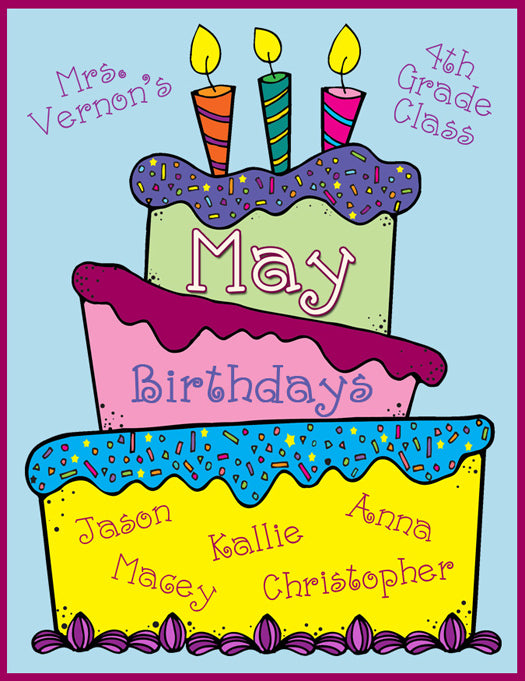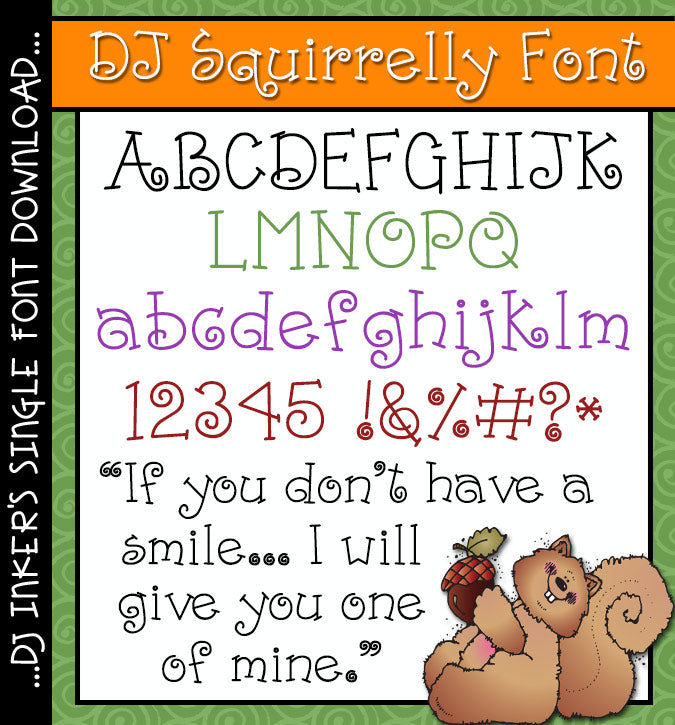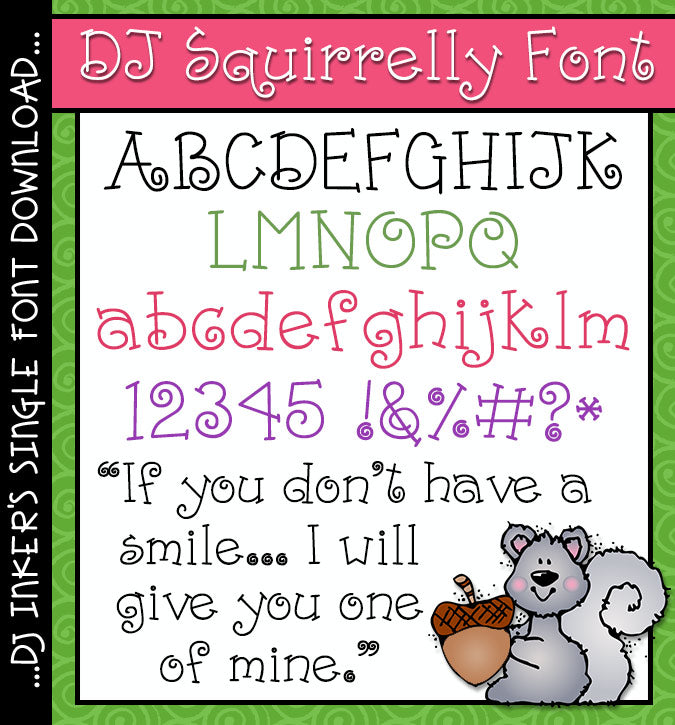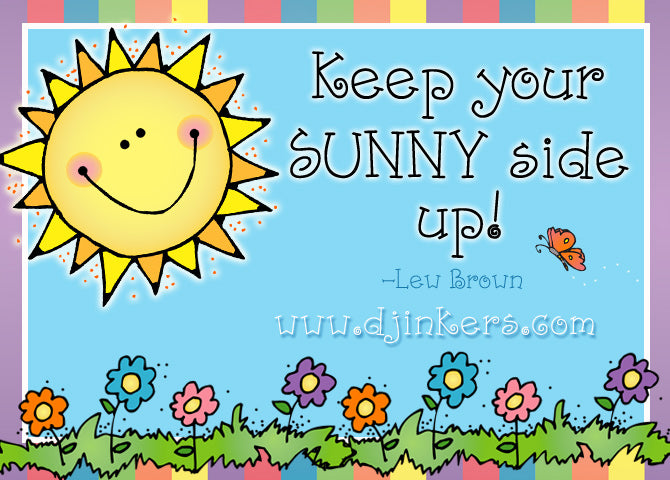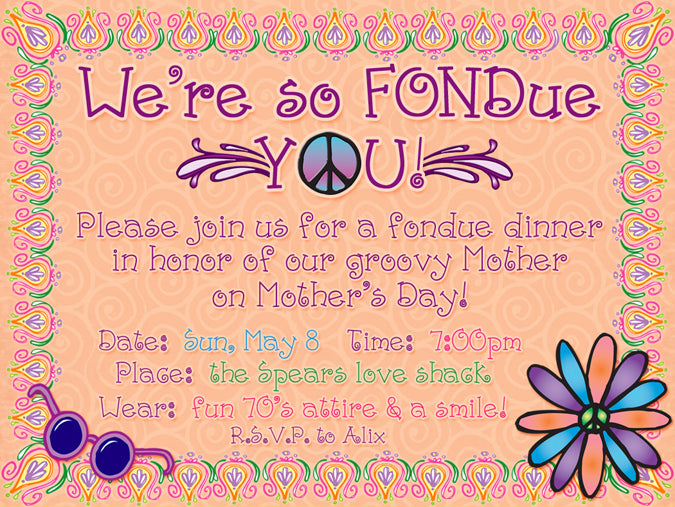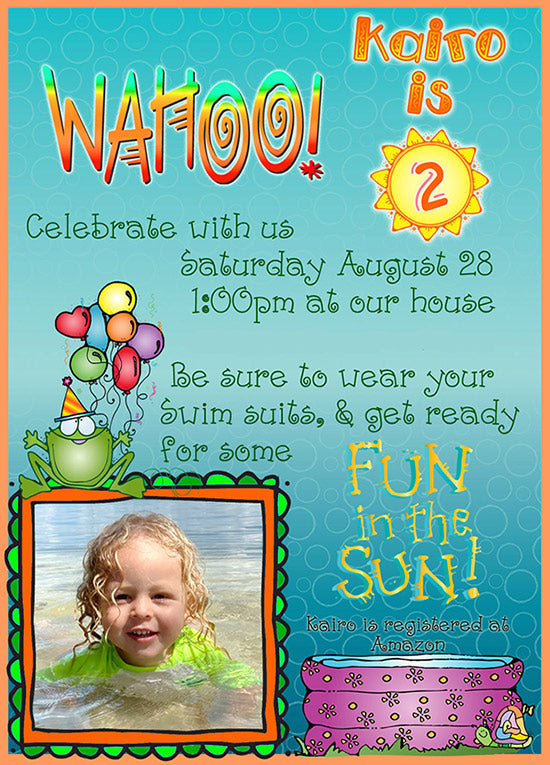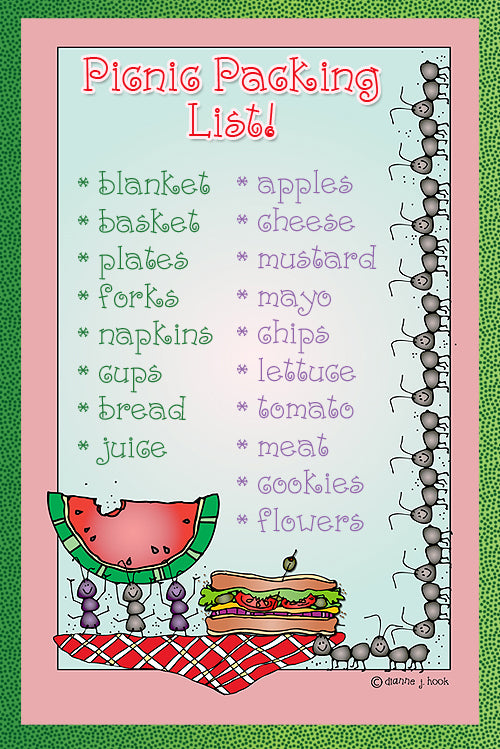
DJ Squirrelly Font Download
Use our swirly, curly DJ Squirrely font on any project that needs
a little cute and crazy! This fun lettering will add a smile to your headlines,
nameplates, posters, fliers, notes and crafts. Go nuts and download today!